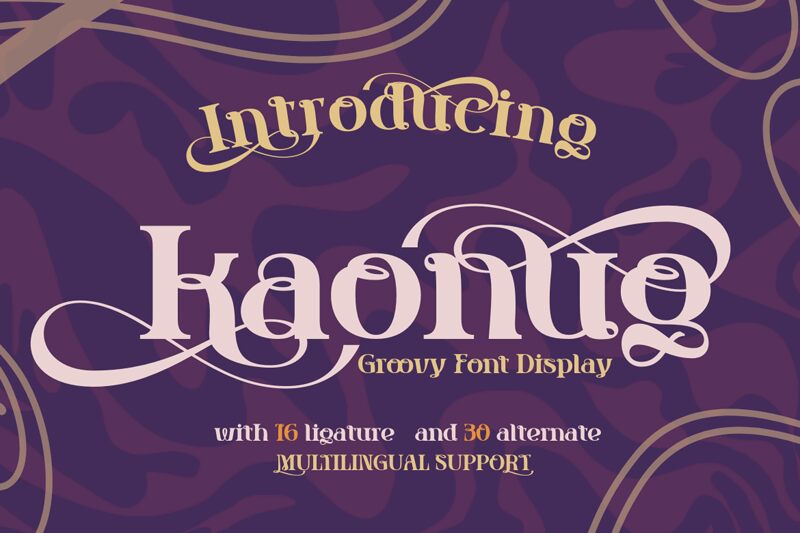
Kaonug font provided by Twinletter is a retro bold font with stylish qualities. Equal spacing, assertive structure, and geometric edges are instantly noticeable. The style is deeply tied to the 60s psychedelic design movement along with some mechanics from brutalism and futurism. Each glyph carries very small details that aren’t visible but make the final black and white result very intriguing.